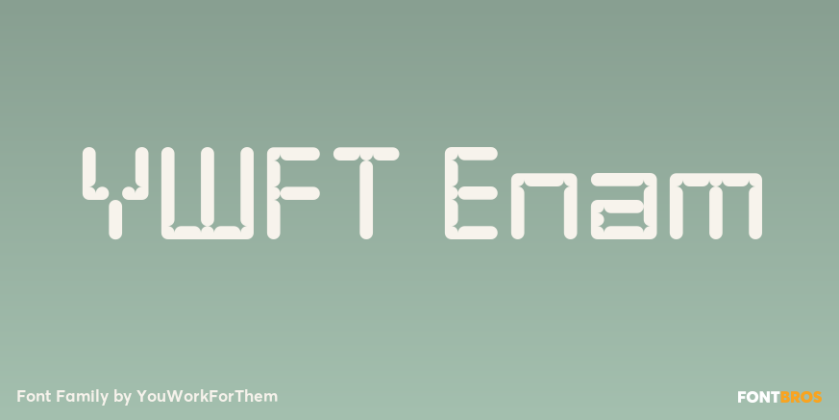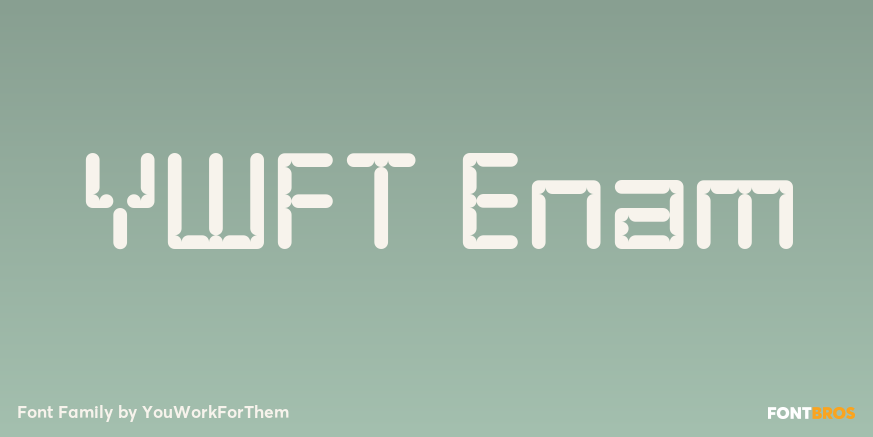
YWFT Enam
About YWFT Enam
YWFT Enam\’s letterforms were originally created for a branding job, then developed as a font, and finally converted to Opentype format in 2010. Some similarity to past work by Wim Crouwel is evident, which comes as no surprise, given our admiration for…